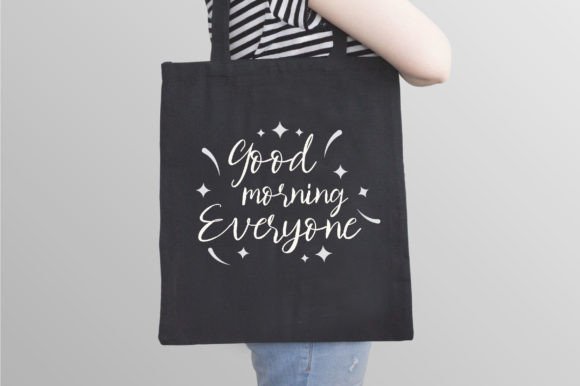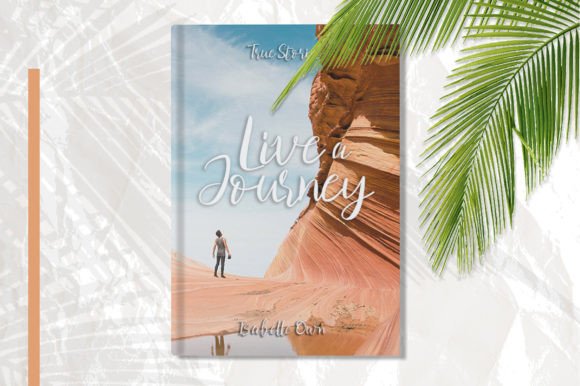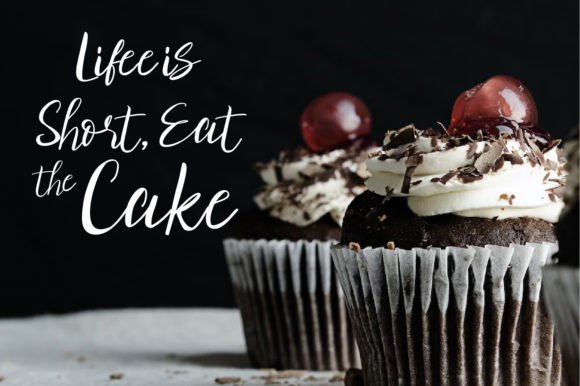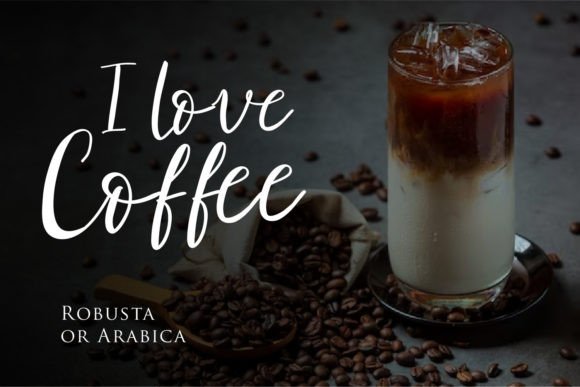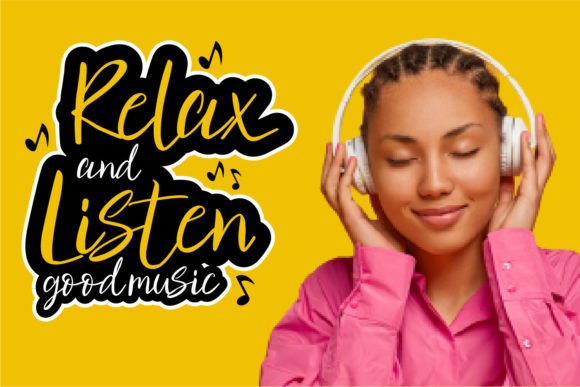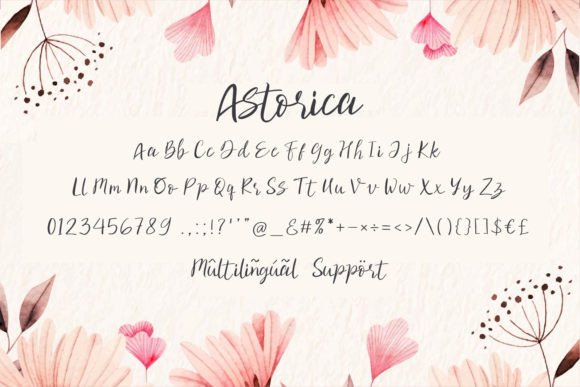
Astorica Font: Elevate Your Designs with Elegance and Sophistication
In the world of typography, few fonts manage to convey the essence of elegance and sophistication as effortlessly as Astorica. This modern handwritten script font is a masterpiece of digital calligraphy, designed to bring a touch of refinement to any design project. With its flowing and fluid letterforms, Astorica captures the beauty of handcrafted calligraphy, making it an ideal choice for designers and crafters looking to add a sense of timeless beauty to their work.
The Beauty of Astorica Font
Astorica’s design is characterized by its fine details and graceful curves, which work in harmony to create a sense of luxury and refinement. Each letterform is carefully crafted to exude a sense of elegance, making it perfect for projects that require a high level of sophistication. Whether you’re designing wedding invitations, branding materials, or packaging, Astorica font is sure to impress.
Key Features of Astorica Font
- Modern Handwritten Script: Astorica’s handwritten script style gives it a unique and personal touch, making it stand out from more traditional fonts.
- Elegant Letterforms: The font’s flowing and fluid letterforms are designed to capture the beauty of handcrafted calligraphy.
- Fine Details: Astorica’s fine details and intricate curves add a level of sophistication to any design.
- Versatile: The font is suitable for a wide range of design projects, from wedding invitations to branding and packaging.
Uses of Astorica Font
Astorica font is incredibly versatile, making it suitable for a variety of design projects. Here are some of the most popular uses of this elegant font:
- Wedding Invitations: Astorica’s elegant and sophisticated design makes it perfect for wedding invitations, adding a touch of luxury to your special day.
- Branding: The font’s unique and refined style makes it an excellent choice for branding materials, such as logos and business cards.
- Packaging: Astorica font can add a touch of elegance to packaging designs, making your products stand out on store shelves.
- Stationery: The font is also suitable for designing stationery, such as letterheads and greeting cards.
Tips for Using Astorica Font
To get the most out of Astorica font, here are some tips to keep in mind:
- Pair with Simple Fonts: Astorica font works best when paired with simple, sans-serif fonts. This contrast will help to create a visually appealing design.
- Use for Headings: The font’s elegant design makes it perfect for headings and titles. Use it to add a touch of sophistication to your design.
- Experiment with Colors: Astorica font looks great in a variety of colors. Experiment with different colors to find the one that works best for your design.
Astorica font is a beautiful and elegant handwritten script font that can add a touch of sophistication to any design project. Its flowing and fluid letterforms, fine details, and graceful curves make it perfect for a wide range of design applications. Whether you’re a designer or crafter, Astorica font is sure to become a valuable addition to your typography collection.
- What is Astorica font? Astorica font is a modern handwritten script font designed to bring a touch of elegance and sophistication to design projects.